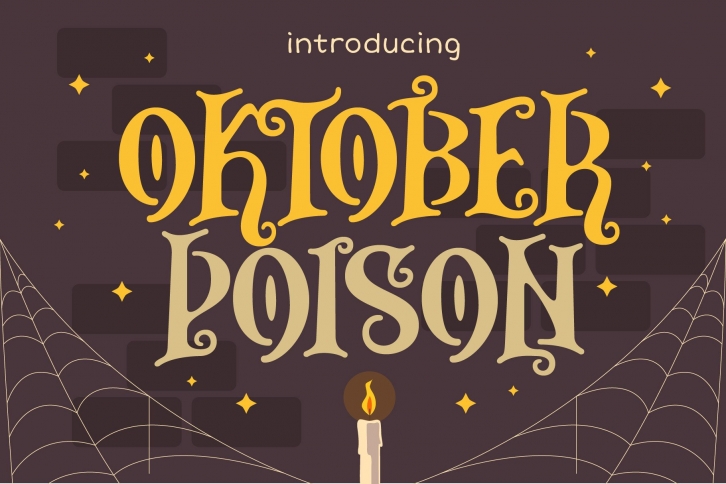
Oktober Poison is a fun serif font that brings a Halloween and horror vibe to it. Use this typeface to add a special spooky touch to any design idea you want to create!